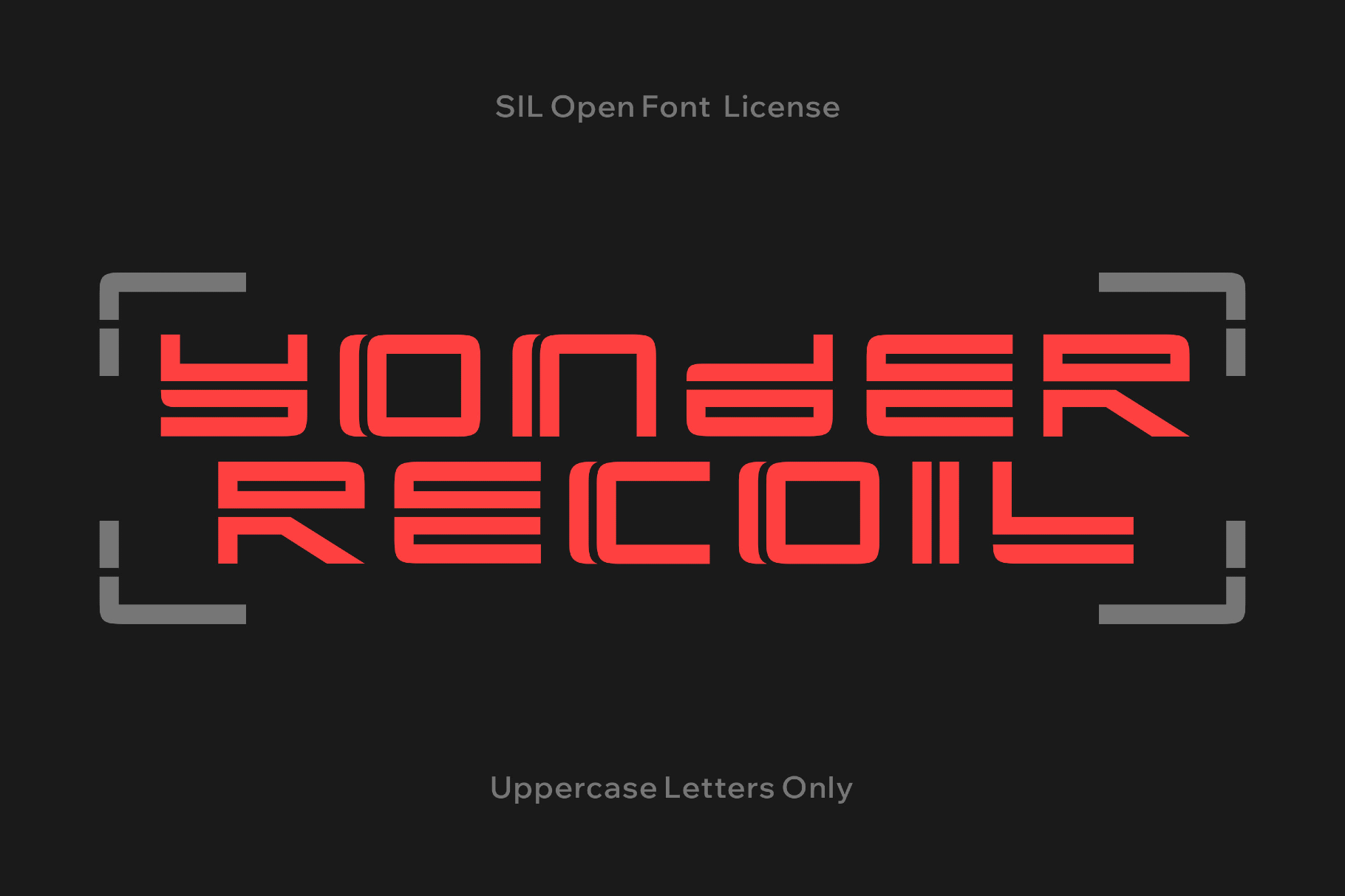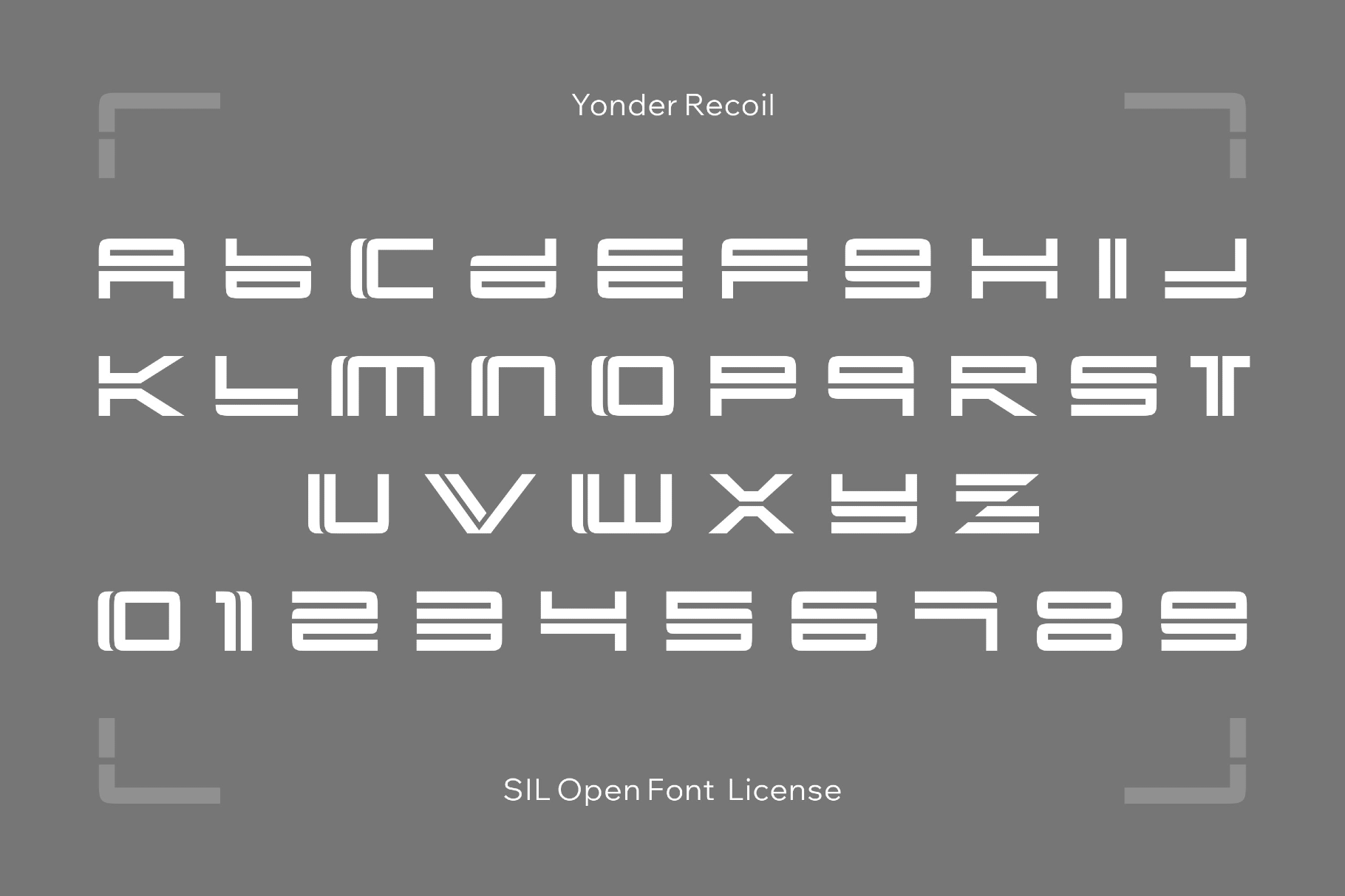
Yonder Recoil - Sci-Fi Font
Yonder Recoil
Yonder Recoil draws from concept-car lettering and cyberpunk manga covers, with slanted geometry and compressed forms. There’s a clear turn-of-the-millennium techno influence in it too: glossy interfaces and sharp digital displays with blue backlighting. It lands well in poster titles, game menus, music artwork, esports branding, motion IDs, album covers, merch graphics, experimental editorials, packaging, and promo visuals.
- uppercase letters;
- numbers, punctuation, dingbats, and symbols;
- multilingual support across an extended Latin script.